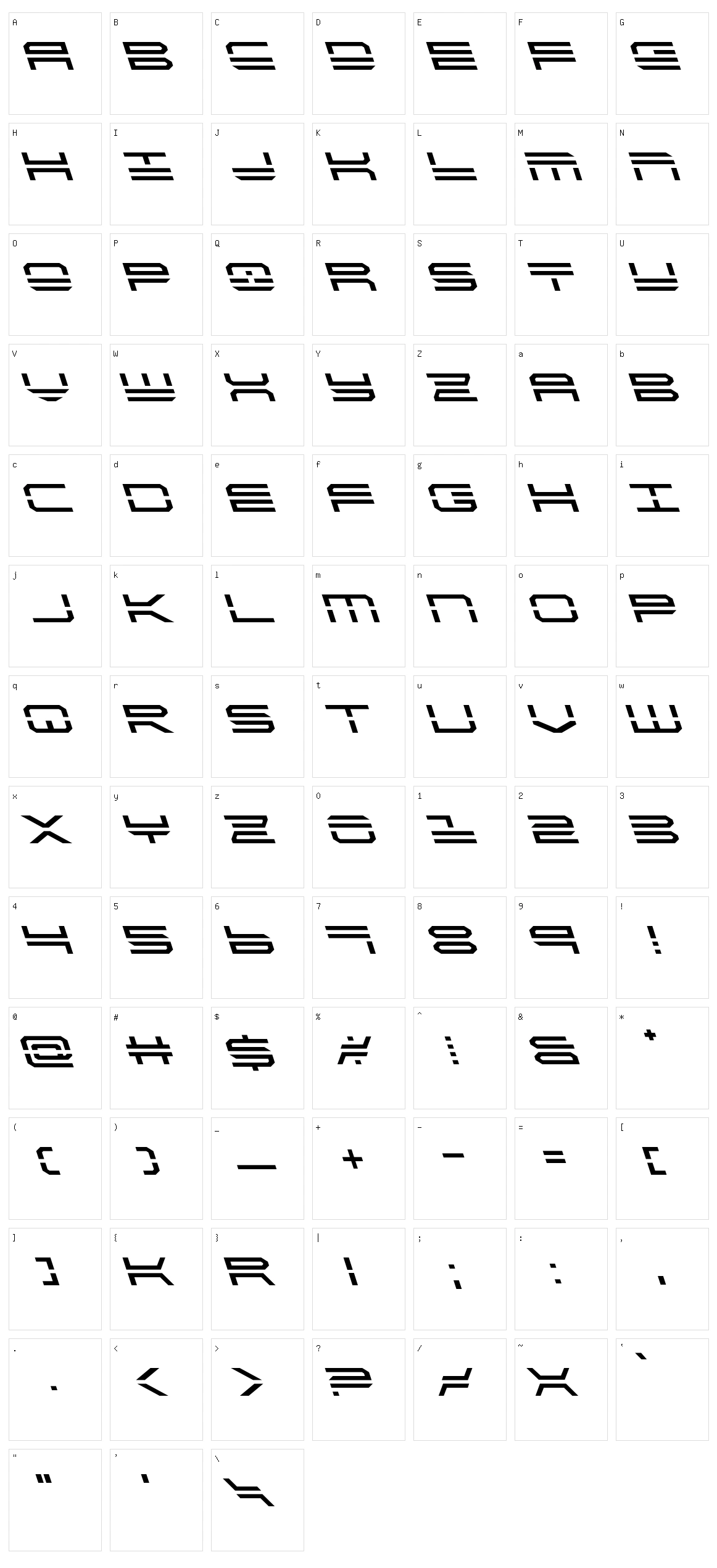
Quick Strike
This font comes with the following 13 versions: Regular, Italic, Condensed, Condensed Italic, Expanded, Expanded Italic, Bold, Bold Italic, 3D, 3D Italic, Semi-Italic, Super-Italic and Leftalic.